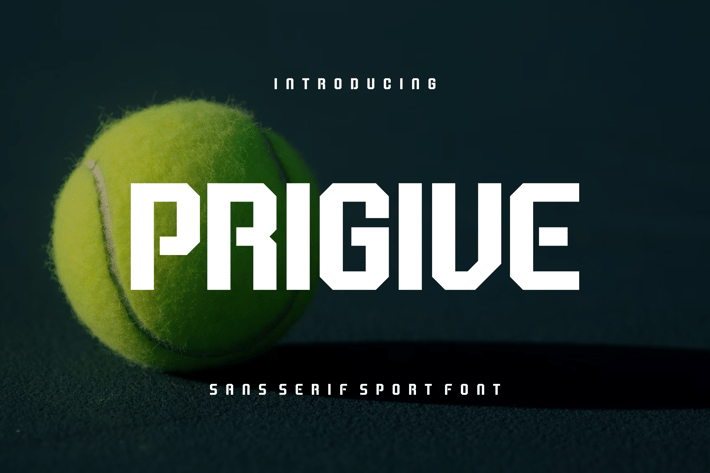
Prigive Font
Introducing our new product Prigive Font - Modern Font
Prigive Font - Modern Font is a bold and authentic display font. The font is suitable for any branding project like logo, esport, and many more. outstanding in a wide range of contexts.